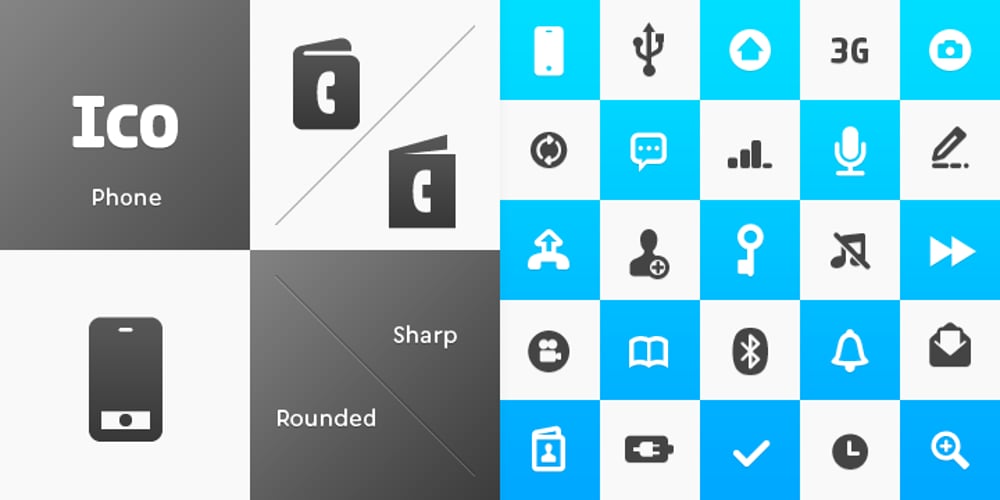
Ico Phone
Ico Phone font
Ico Phone Font Family was designed by Ondrej Jób and published by Setup Type. Ico Phone contains 2 styles and family package options. Ico Phone is a set of 115 symbols depicting anything that happens on the screen of a regular mobile phone. To name a few, there are Bluetooth and sync icons, signal bars, battery statuses, media playback icons, USB symbol, lock icon as well as a wifi signal strength indicator. The style of Ico is inspired by the look of symbols used on the classic monochrome LCD displays. The symbols are monolinear with rounded corners, composed of a smallest possible number of elements. In addition, the rounded style is accompanied by a second style with sharp corners and more detailed drawing. All symbols of Ico share the same width, making the font compatible with the LCD typeface ION. Together, they are the perfect sollution for LCD style typography. Ico Phone is a part of a larger set. Have a look at the other available Ico fonts and don’t forget to check back soon for even more additions.